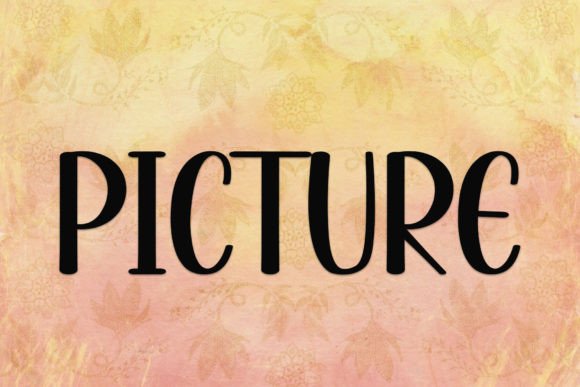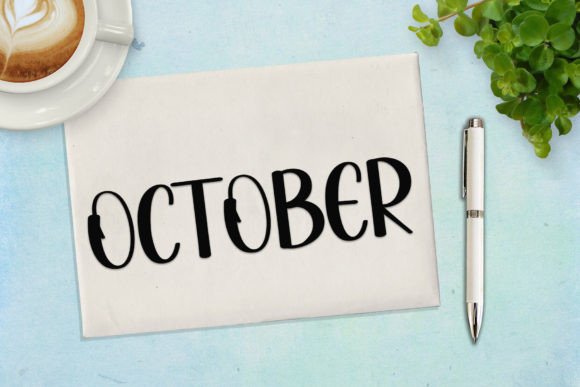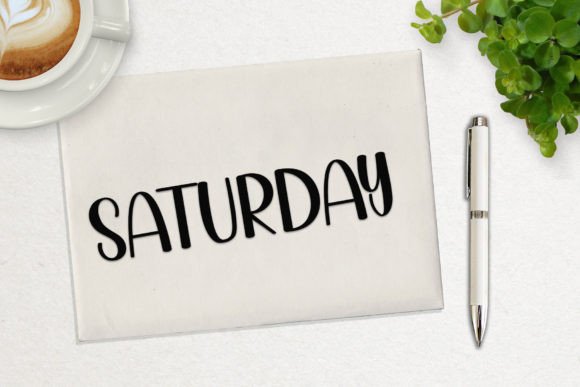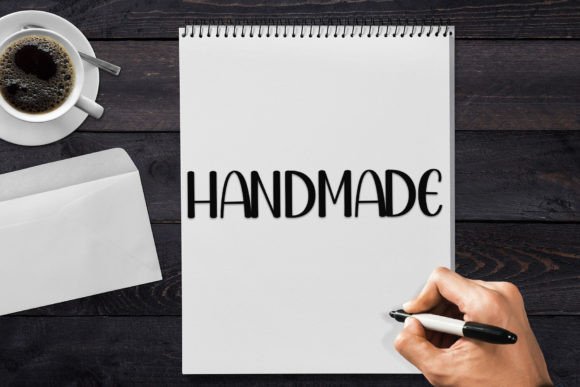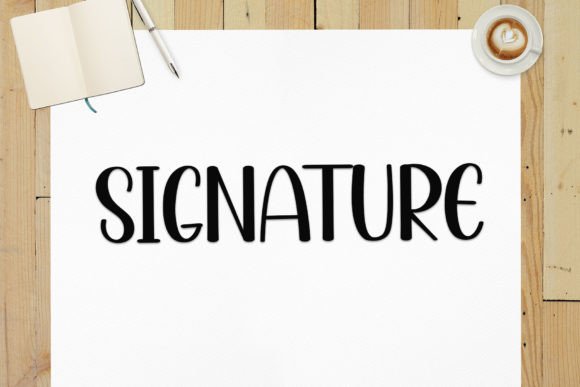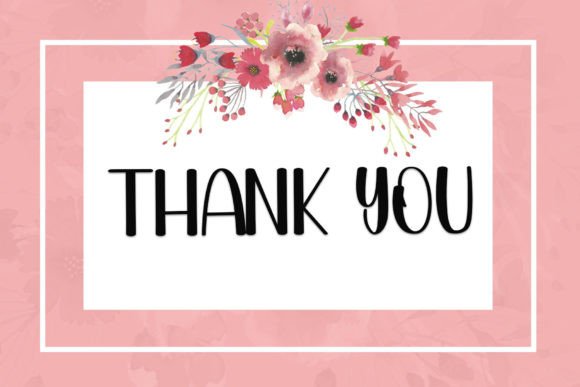
Introducing Creator Font: Elevate Your Designs with Timeless Elegance
In the world of typography, a font can make or break the aesthetic of a design project. For designers and crafters seeking a stylish and contemporary handwritten font, Creator Font is an exceptional choice. Inspired by timeless classic calligraphy, Creator Font brings a touch of sophistication and elegance to any project.
What is Creator Font?
Creator Font is a beautifully crafted handwritten font that exudes a sense of modernity and refinement. Its design is rooted in traditional calligraphy, yet it boasts a fresh and contemporary atmosphere that sets it apart from more conventional fonts. With its impeccable form and balanced character set, Creator Font is the perfect solution for designers looking to add a personal touch to their work.
Key Features of Creator Font
- PUA Encoding: Creator Font is PUA (Private Use Area) encoded, which means that accessing its extensive range of glyphs and ligatures is incredibly easy. This feature allows designers to explore a vast array of typographic possibilities, making their work more engaging and dynamic.
- Balanced and Varied: The font’s characters are thoughtfully designed to provide a harmonious balance between consistency and variation. This ensures that text set in Creator Font is not only legible but also visually appealing.
- Contemporary yet Classic: Creator Font strikes the perfect balance between modern style and timeless elegance. Its classic roots in calligraphy provide a sense of tradition, while its contemporary twist keeps it fresh and relevant.
Creator Font offers numerous benefits for designers and crafters looking to elevate their projects:
- Ease of Use: Thanks to its PUA encoding, designers can easily access and use the font’s extensive features without needing complex software or technical expertise.
- Versatility: Creator Font’s balanced and varied design makes it suitable for a wide range of applications, from branding and advertising to packaging and digital media.
- Unique Aesthetic: The font’s distinctive style, inspired by classic calligraphy, allows designers to create unique and memorable visual identities for their clients or projects.
Use Cases for Creator Font
The versatility of Creator Font makes it an excellent choice for various design projects:
- Branding and Logos: Create a lasting impression with a custom logo or brand identity that exudes elegance and sophistication.
- Digital Media: Enhance your website, social media, or digital advertising with a font that stands out from the crowd.
- Packaging and Product Design: Add a touch of luxury and refinement to your product packaging with Creator Font.
- Stationery and Print Materials: Elevate your business cards, letterheads, and other print materials with a stylish and contemporary font.
Creator Font is a stylish and versatile handwritten font that brings a touch of timeless elegance to any design project. Its impeccable form, balanced character set, and PUA encoding make it an excellent choice for designers and crafters seeking to create visually stunning and memorable work. Whether you’re working on branding, digital media, packaging, or print materials, Creator Font is sure to elevate your designs to the next level.